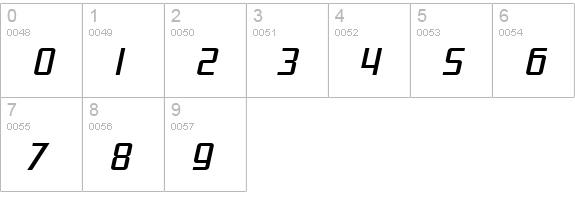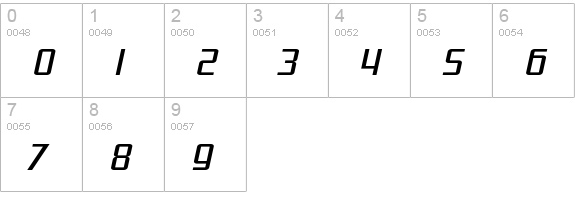
SF Proverbial Gothic Oblique Font Details
SF Proverbial Gothic Oblique is a distinctive, italic variant in the SF typeface family \xE2\x80\x94 well suited to design and typography projects.
SF Proverbial Gothic Oblique is a captivating and versatile font that effortlessly combines the elegance of a gothic aesthetic with a modern twist. With its slanted and edgy letterforms, this font exudes a sense of mystery and intrigue, making it the perfect choice for projects that require a touch of sophistication. This font's unique design adds a contemporary flair to any design, making it a standout choice for branding, headlines, logos, and more. Its sleek and stylish appearance commands attention and leaves a lasting impression on anyone who encounters it. One of the most remarkable aspects of SF Proverbial Gothic Oblique is that it is freely available to download at FontsMarket.com. This means that designers, artists, and enthusiasts alike can access this remarkable font without any constraints, allowing for limitless creativity and exploration. Whether you're creating a poster, website, or any other design project, SF Proverbial Gothic Oblique is the perfect companion to bring your vision to life. Its unique blend of elegance and modernity will effortlessly elevate your work, making it stand out from the crowd. So, why settle for ordinary when you can have extraordinary? Download SF Proverbial Gothic Oblique today from FontsMarket.com and unlock a world of endless possibilities. Let your imagination run wild and watch as this font takes your designs to new heights.